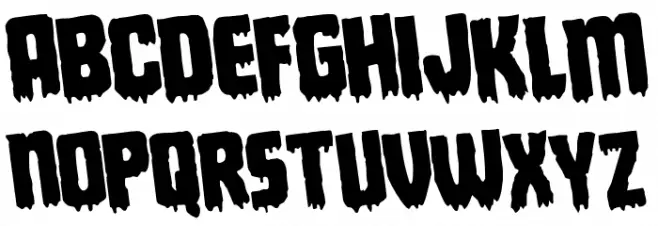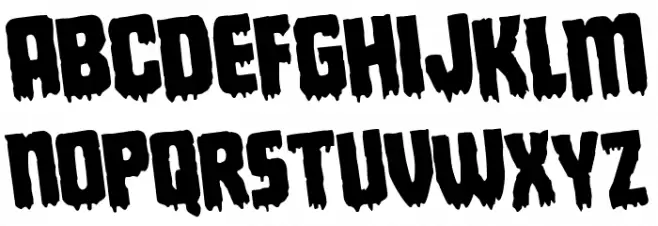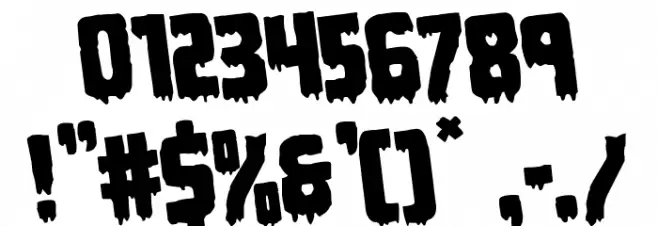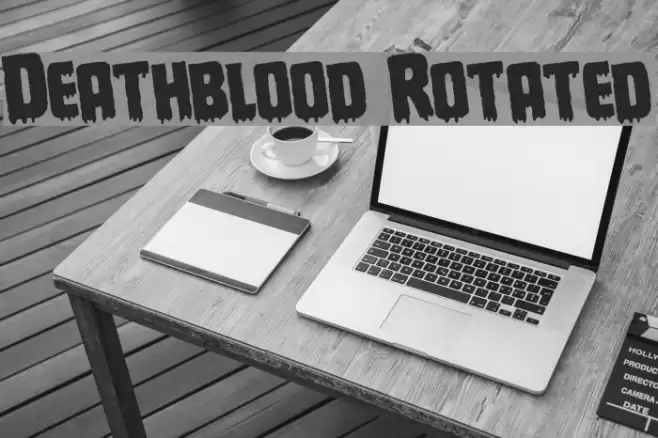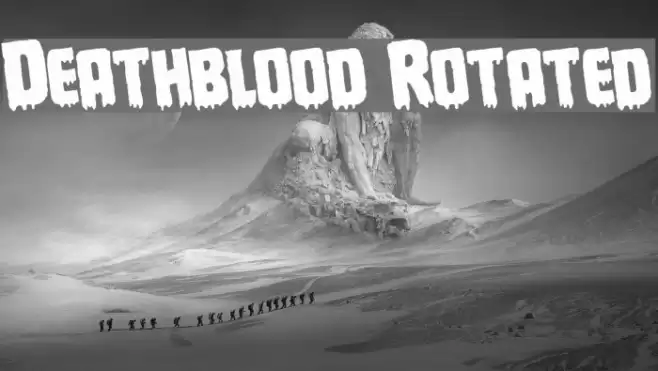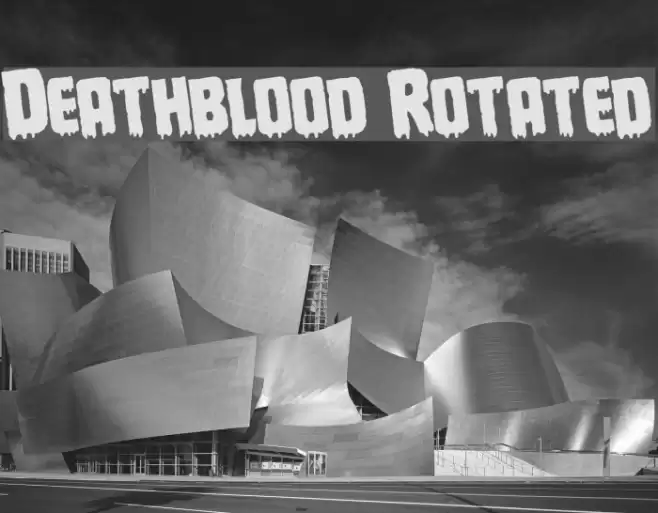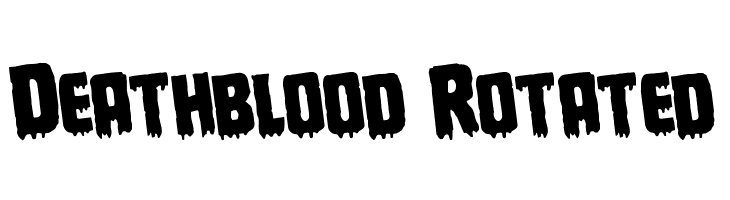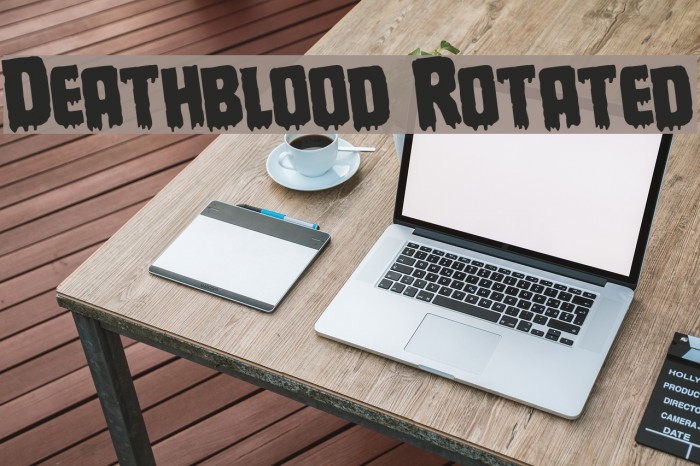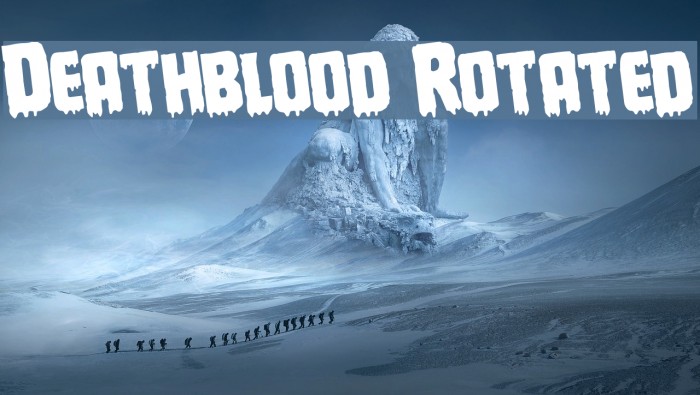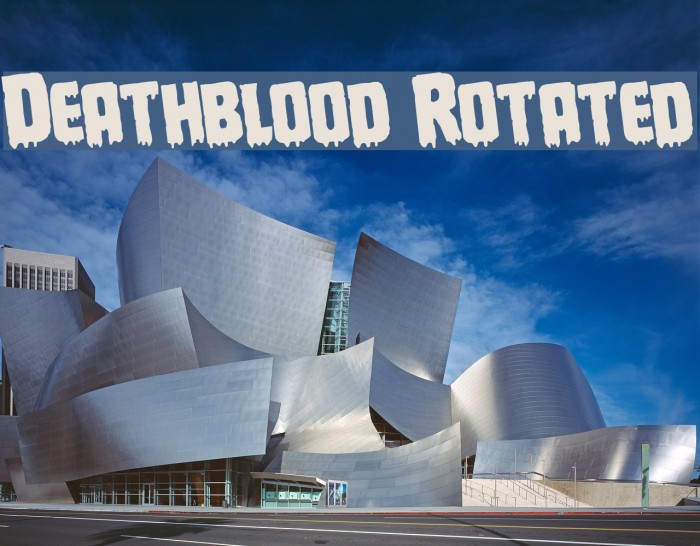
Deathblood Rotated
This font features a bold and dramatic style with a dripping effect that gives it a horror-themed appearance. The characters are thick and heavy, with irregular edges that resemble dripping paint or blood, making it ideal for creating a spooky or eerie atmosphere. The uppercase and lowercase letters maintain a consistent style, with numbers and special characters following the same design principles. The font's unique aesthetic is perfect for Halloween-themed projects, horror movie posters, or any design that requires a chilling and impactful look.
A bold, horror-themed font with a dripping effect, ideal for spooky designs.
- Proposed Projects: Perfect for Halloween invitations, horror movie posters, themed event flyers, and video game graphics.
- Overall Style: Decorative